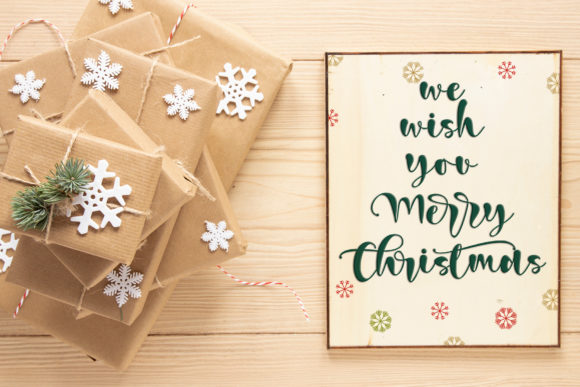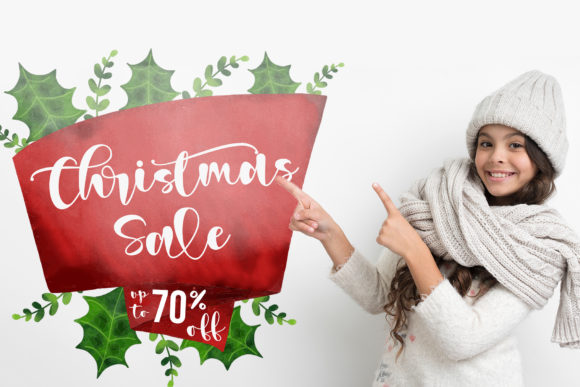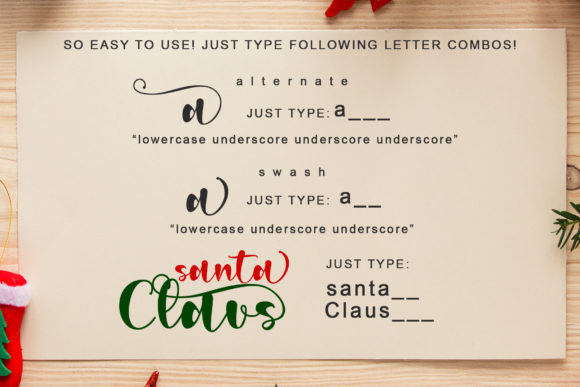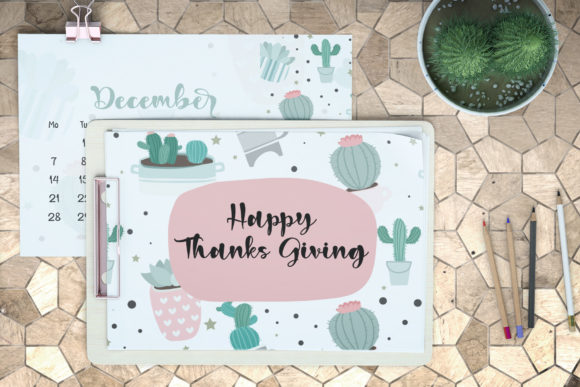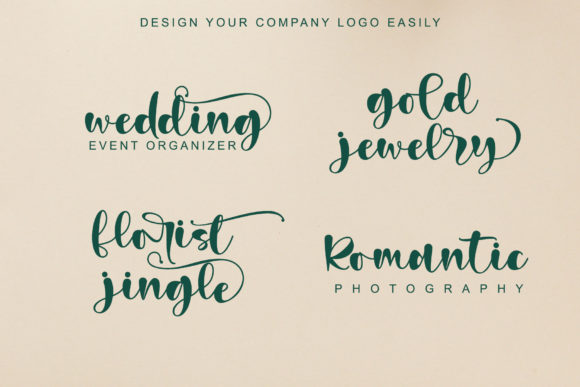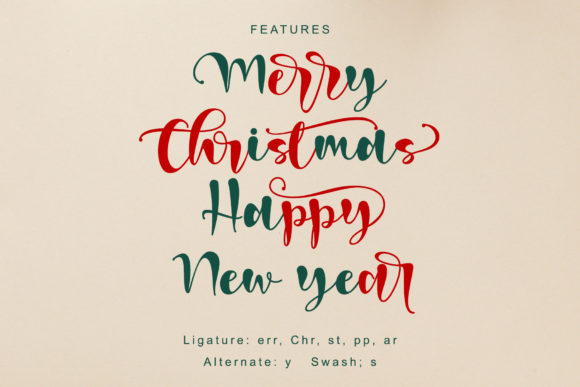
Introducing Christmas Magic Font: The Ultimate Elegance for Your Designs
Are you looking for a font that embodies the spirit of elegance and sophistication for your Christmas designs? Look no further than the Christmas Magic Font! This beautiful, handwritten font is perfect for creating stunning holiday-themed projects that will leave a lasting impression on your audience.
What Makes Christmas Magic Font So Special?
Christmas Magic Font is an elegant and flowing handwritten font that is sure to add a touch of magic to your designs. With its PUA encoding, you can easily access all of the glyphs and swashes, making it simple to create unique and eye-catching projects. The font features a varying baseline, smooth lines, gorgeous glyphs, and stunning alternates, giving you endless possibilities for creative expression.
Key Features of Christmas Magic Font
- Elegant and Flowing Handwritten Style: Christmas Magic Font boasts a beautiful, cursive script that exudes elegance and sophistication.
- PUA Encoded: With PUA encoding, you can access all of the glyphs and swashes with ease, making it simple to create stunning designs.
- Varying Baseline: The font’s varying baseline adds a touch of whimsy and playfulness to your designs.
- Smooth Lines and Gorgeous Glyphs: The smooth lines and gorgeous glyphs in Christmas Magic Font make it perfect for creating high-end designs.
- Stunning Alternates: The font features stunning alternates, giving you even more options for customizing your designs.
Why Choose Christmas Magic Font?
Christmas Magic Font is the perfect choice for designers and crafters who want to create stunning holiday-themed projects. Its classy calligraphic influences and contemporary feel make it an excellent addition to any design. With its incredibly distinct and timeless style, you’ll fall in love with this font and use it again and again to create spectacular designs.
Whether you’re a designer or crafter, Christmas Magic Font is the perfect addition to your font collection. Use it to create:
- Holiday Cards and Invitations: Create stunning holiday cards and invitations that will impress your friends and family.
- Christmas Party Decorations: Use Christmas Magic Font to create beautiful party decorations, such as banners, garlands, and more.
- Digital Papers and Journal Cards: Create beautiful digital papers and journal cards that are perfect for scrapbooking and other paper crafting projects.
- Social Media Graphics: Use Christmas Magic Font to create eye-catching social media graphics that will help your business stand out during the holiday season.
Tips for Using Christmas Magic Font
Here are a few tips for getting the most out of Christmas Magic Font:
- Experiment with Different Sizes and Colors: Try out different sizes and colors to see what works best for your design.
- Use the Swashes and Glyphs to Add Interest: Don’t be afraid to get creative with the swashes and glyphs to add interest and depth to your design.
- Pair it with Other Fonts: Try pairing Christmas Magic Font with other fonts to create a unique and eye-catching design.
Christmas Magic Font is a beautiful and elegant handwritten font that is perfect for creating stunning holiday-themed designs. With its PUA encoding, varying baseline, smooth lines, gorgeous glyphs, and stunning alternates, you’ll love using it to create spectacular designs. Whether you’re a designer or crafter, this font is sure to become a favorite in your collection.